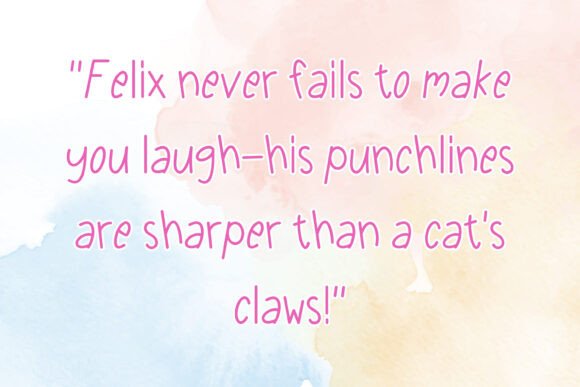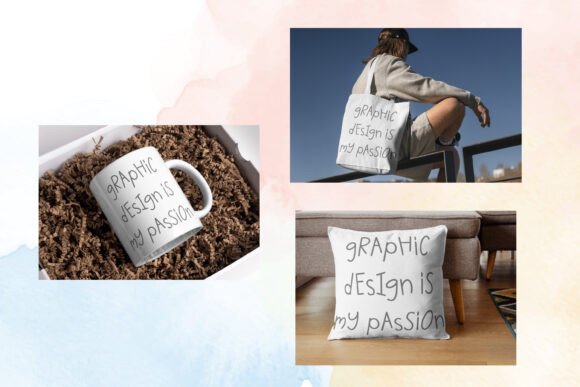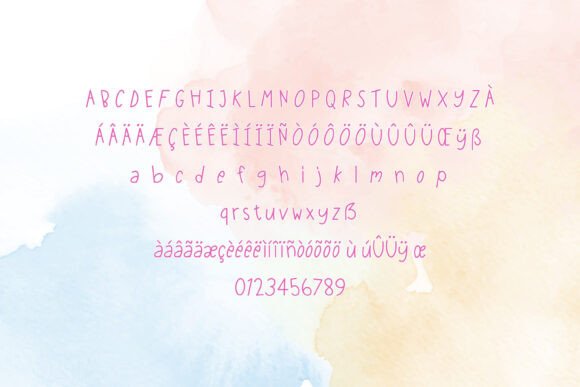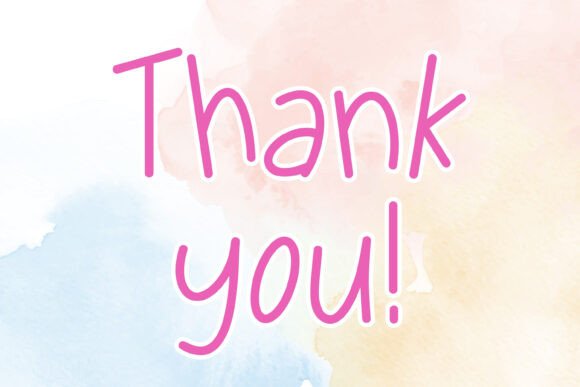
Adding a Dash of Personality to Your Designs
You know that moment when you’re brainstorming ideas for a new project, and suddenly, a spark of creativity hits you? It’s like the entire world of possibilities opens up, and you can’t wait to get started. For designers and creatives, this feeling is a familiar and exciting one, and it’s exactly what the Funny Felix Font is designed to inspire.
Meet Funny Felix Font, a charming and playful handwritten font that adds a personal touch to any design. Its smooth curves and quirky style make it perfect for crafting creative projects such as posters, invitations, quotes, cards, and more. Whether you’re working on digital designs or printable art, Funny Felix brings a cheerful and friendly vibe to any project, making it an invaluable tool for designers who want to create warm and inviting aesthetics.
Funny Felix Font Key Features
- Size: The font comes in a single weight, making it ideal for use in various design applications where a consistent look is desired.
- Unique Characteristics: The font features a playful, hand-drawn style with irregular shapes and lines, giving it a whimsical and humorous feel.
- Character Set: The font includes a standard character set, including uppercase and lowercase letters, numbers, and punctuation marks, making it suitable for everyday use.
Designer Review: Funny Felix Font
I recently had the chance to work with Funny Felix Font, and I must say, it’s an interesting font. Let’s dive into what works well and what doesn’t.
- Unique Character: Funny Felix Font has a distinct personality, making it perfect for designs that need a touch of whimsy.
- Playful Expressiveness: The font’s expressive nature makes it suitable for headings and titles where you want to convey a sense of fun and energy.
- Good Legibility: Despite its quirky nature, Funny Felix Font remains relatively easy to read, even at smaller font sizes.
- Limited Versatility: While Funny Felix Font excels at conveying a sense of playfulness, it may not be the best choice for formal or professional designs.
- Not Suitable for Body Text: Due to its expressive nature, Funny Felix Font may not be the best choice for large blocks of body text, where legibility is crucial.
Overall, I’d say Funny Felix Font is a great addition to any designer’s toolkit, but it’s essential to use it judiciously. With its unique character and playful expressiveness, it’s perfect for designs that need a touch of humor and whimsy. Just be mindful of its limitations, and you’ll be sure to create something truly special.
Use Funny Felix Font to add a playful touch to your social media graphics, blog posts, or marketing materials.
Use Funny Felix Font to add a whimsical feel to your graphics, illustrations, or typography projects.
Use Funny Felix Font to add a lighthearted touch to your presentations, reports, or documents.
Funny Felix Font is perfect for:
- Social media graphics and posts
- Blog posts and articles
- Marketing materials and flyers
- Presentations and reports
- Illustrations and graphics
Remember to use Funny Felix Font in moderation to avoid overwhelming your design.